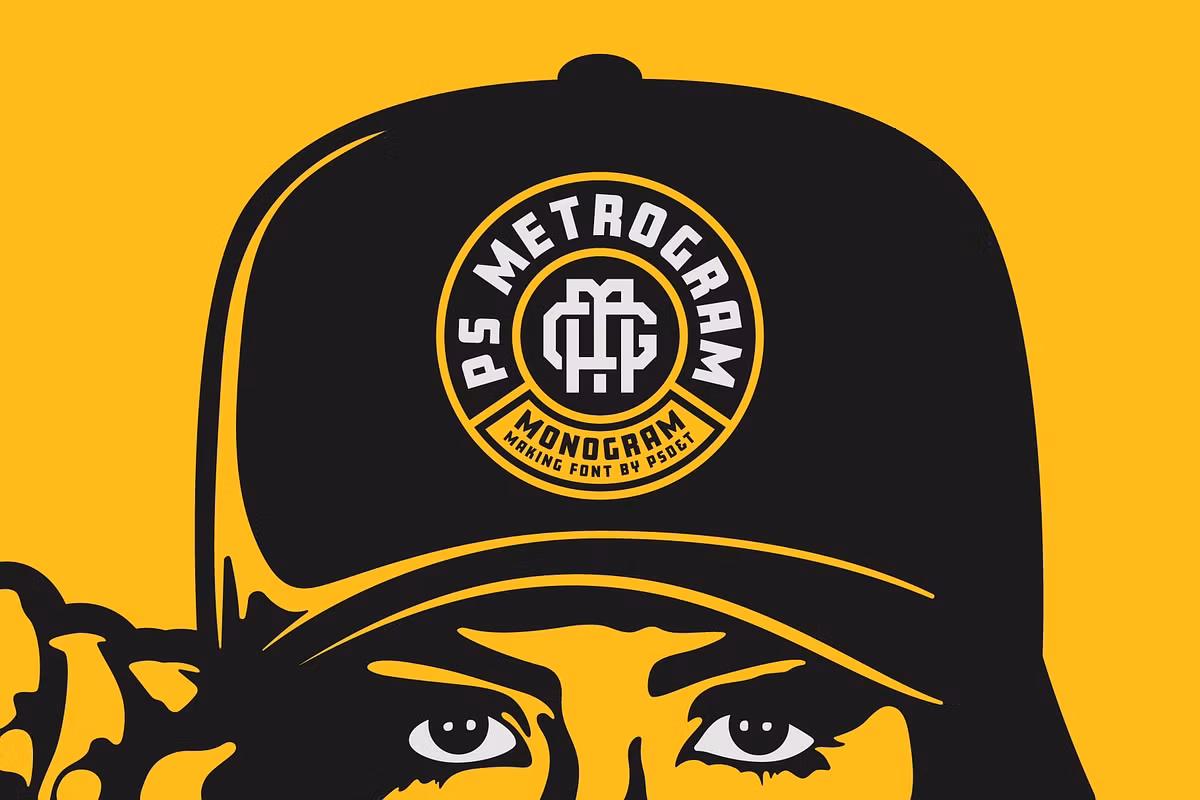
PS METROGRAM - URBAN MONOGRAM FONT Free Download is a bold, stylish typeface inspired by modern urban design. With its unique monogram style, this font is perfect for logos, branding, posters, and any creative project that needs a sharp, contemporary edge. The clean, geometric lines and distinctive letterforms make PS METROGRAM a great choice for designs that require a professional and striking look.